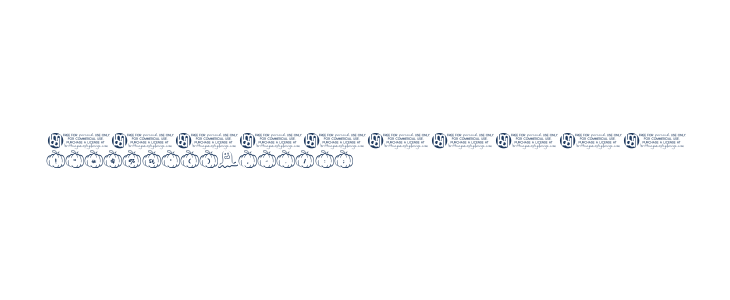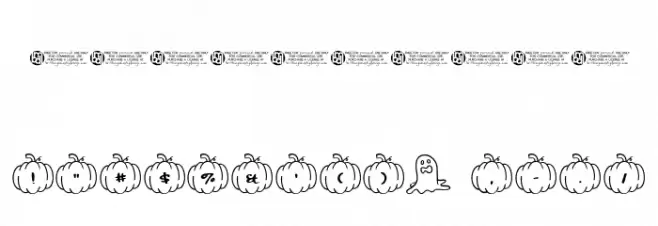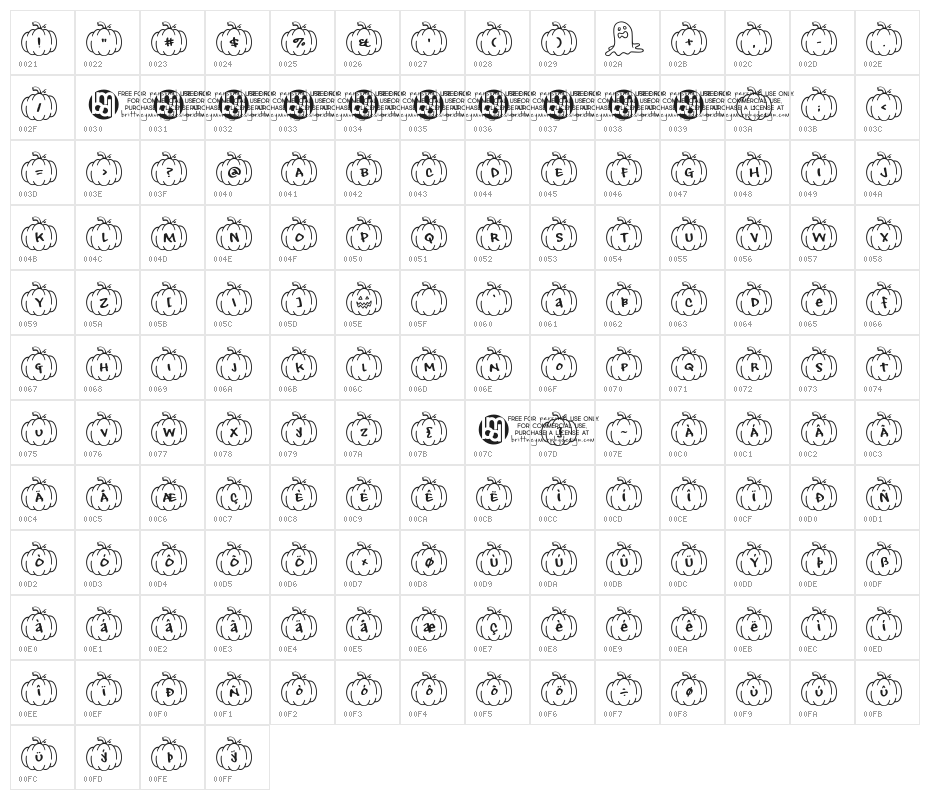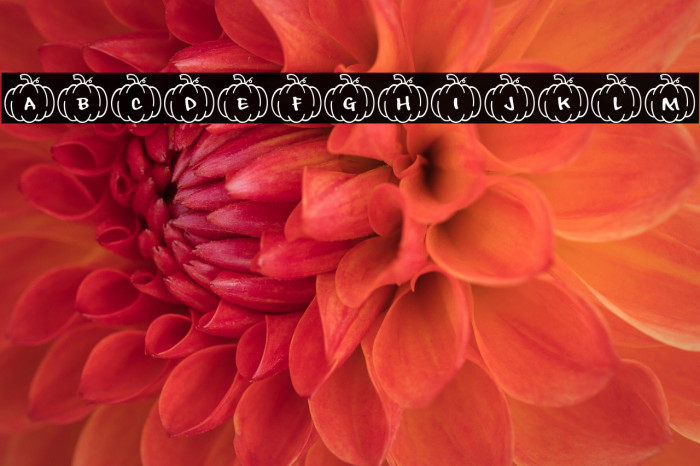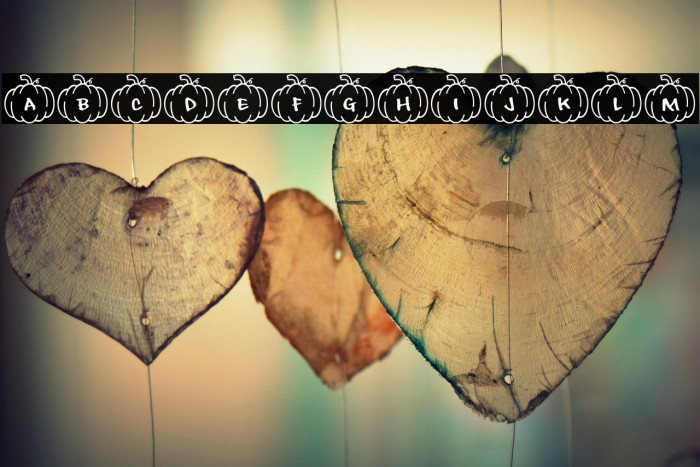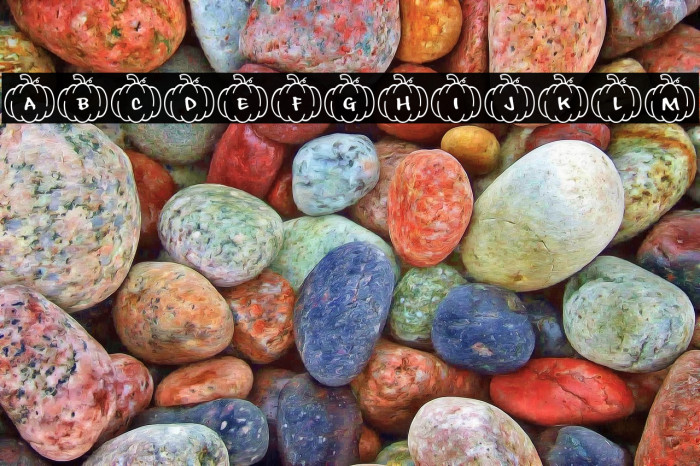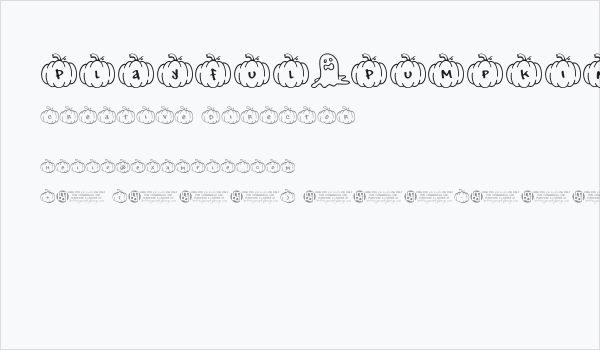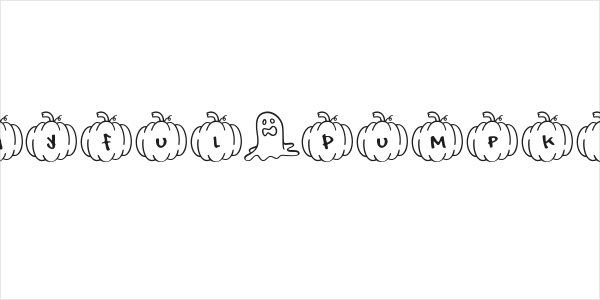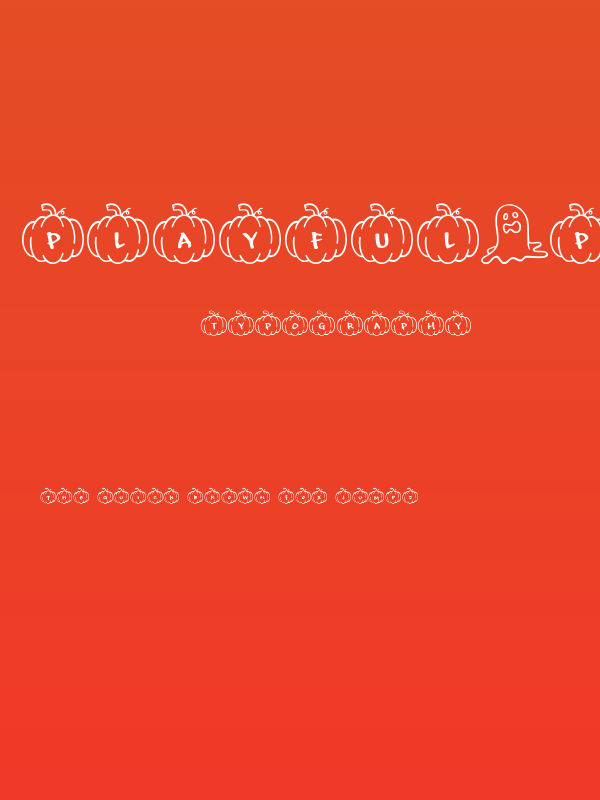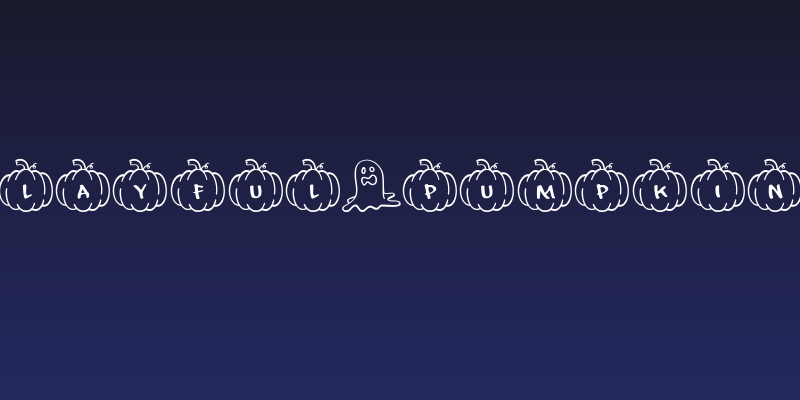
Playful*Pumpkins Font
Playful*Pumpkins Description
This whimsical and playful font features each character enclosed within a charming pumpkin shape, evoking a festive and fun Halloween theme. The letters are bold and cartoonish, with a hand-drawn style that adds a touch of creativity and uniqueness. The pumpkins are outlined with a slightly irregular line, enhancing the hand-crafted feel. This font is perfect for seasonal projects, especially those related to autumn or Halloween, where a lighthearted and festive atmosphere is desired. The inclusion of special characters and numbers ensures versatility for various design needs.
| Overall Style | Playful, Festive |
| Use Case | Headlines, Decorative text, Seasonal themes |
| Proposed Projects | Ideal for Halloween invitations, festive banners, children's party decorations, and seasonal greeting cards. |